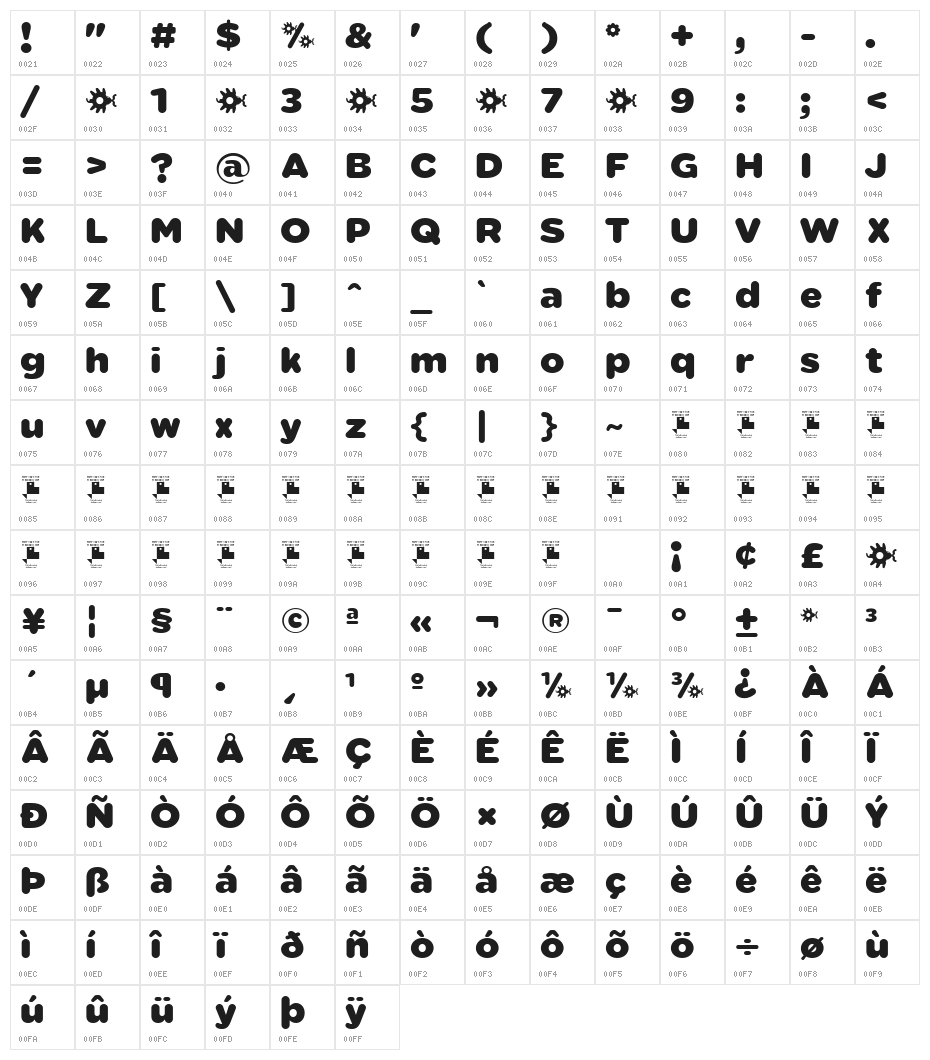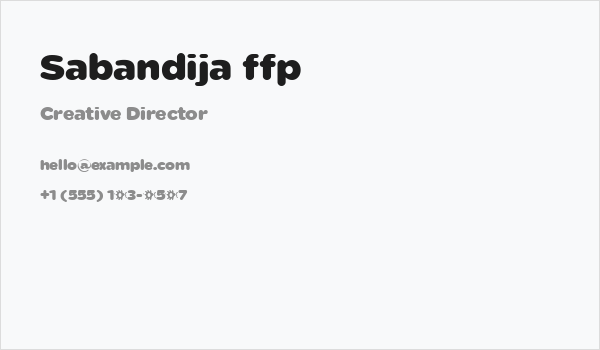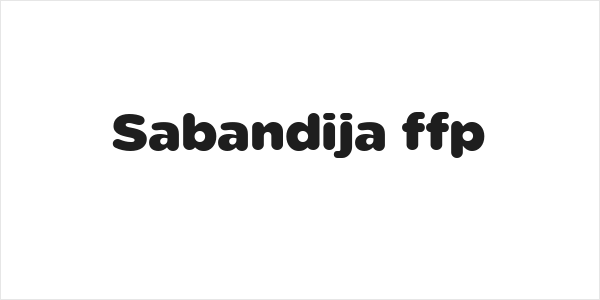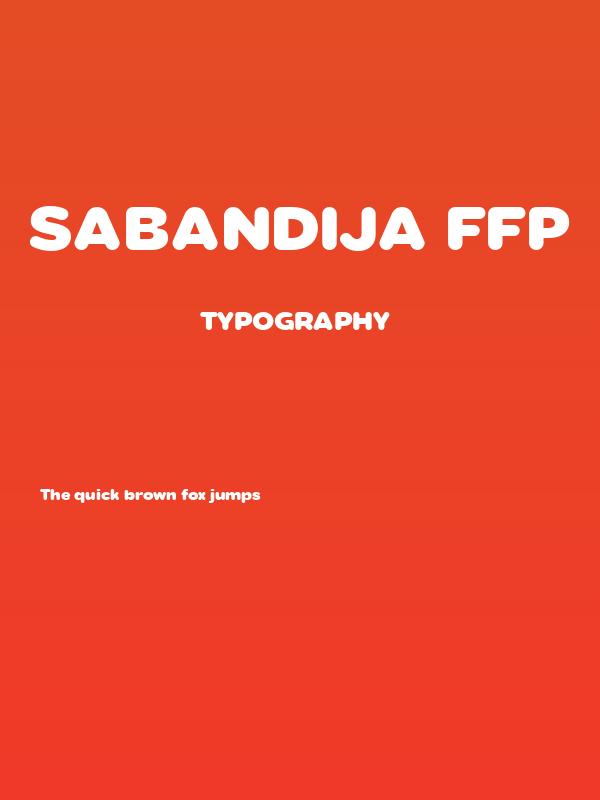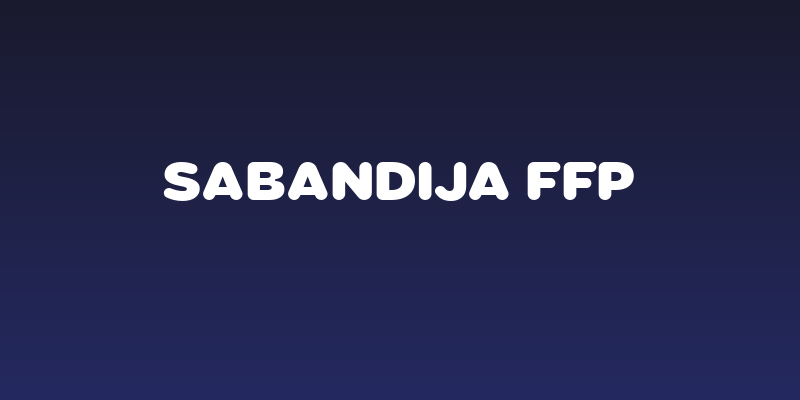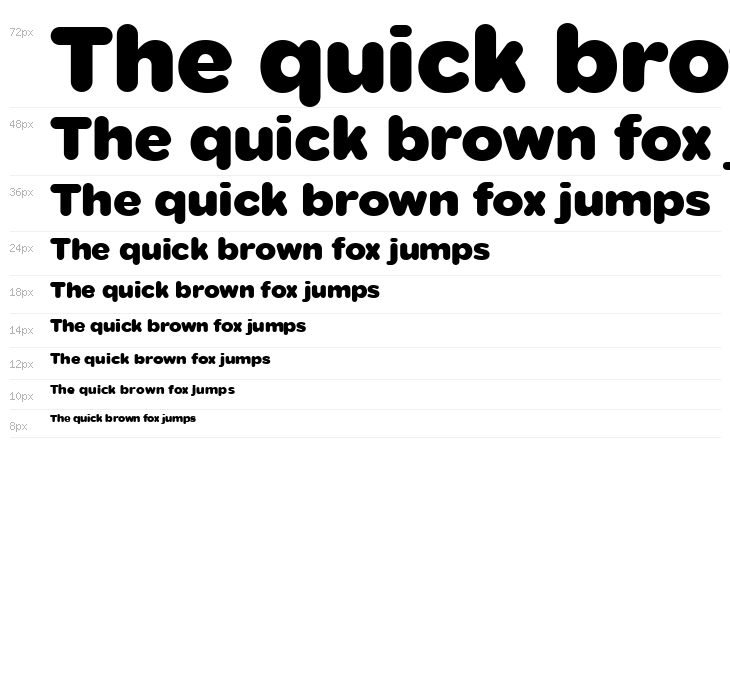
Sabandija ffp Font
Sabandija ffp Description
This font features a playful and bold design with rounded edges and a bubbly appearance. The characters are uniformly thick, giving it a consistent and cohesive look. The numbers are particularly unique, incorporating playful elements that make them stand out. The special characters maintain the same rounded and bold style, ensuring uniformity across the font. This font exudes a sense of fun and creativity, making it ideal for projects that require a lively and engaging typeface.
| Overall Style | Playful, Fun |
| Proposed Projects | Ideal for children's books, playful branding, posters, and creative projects that require a fun and engaging typeface. |